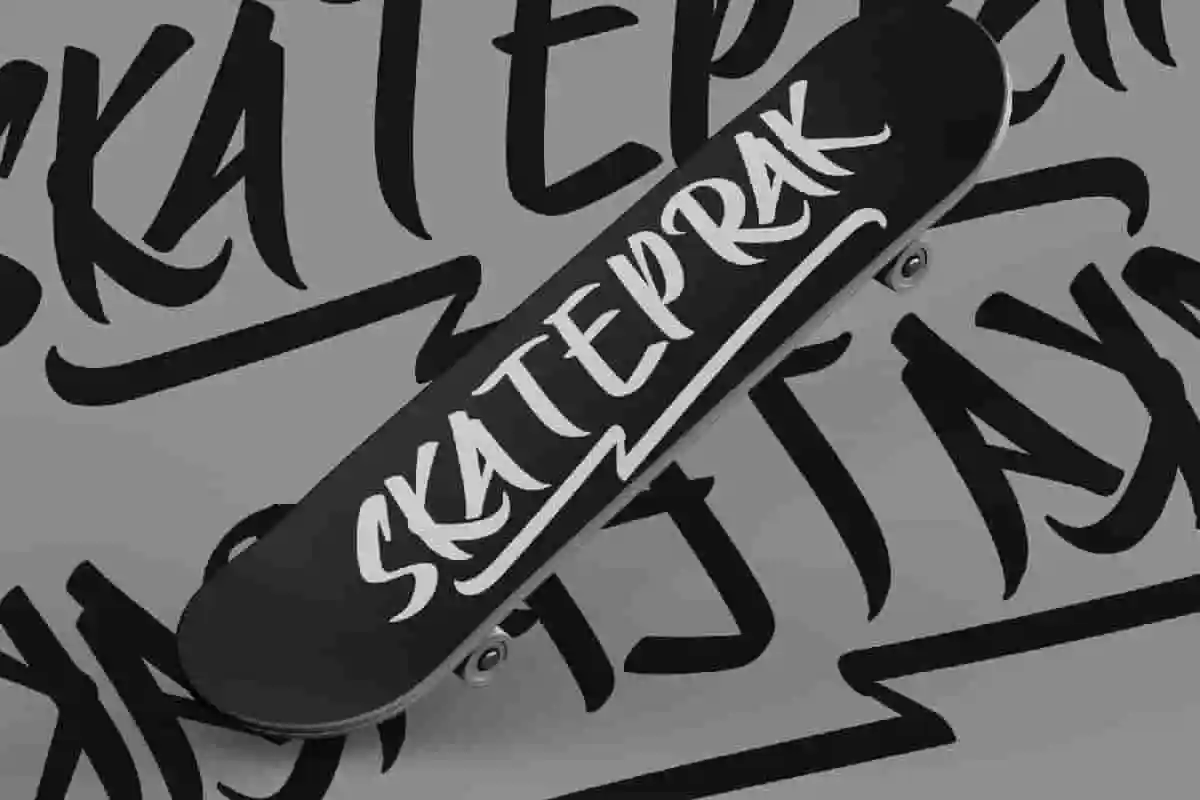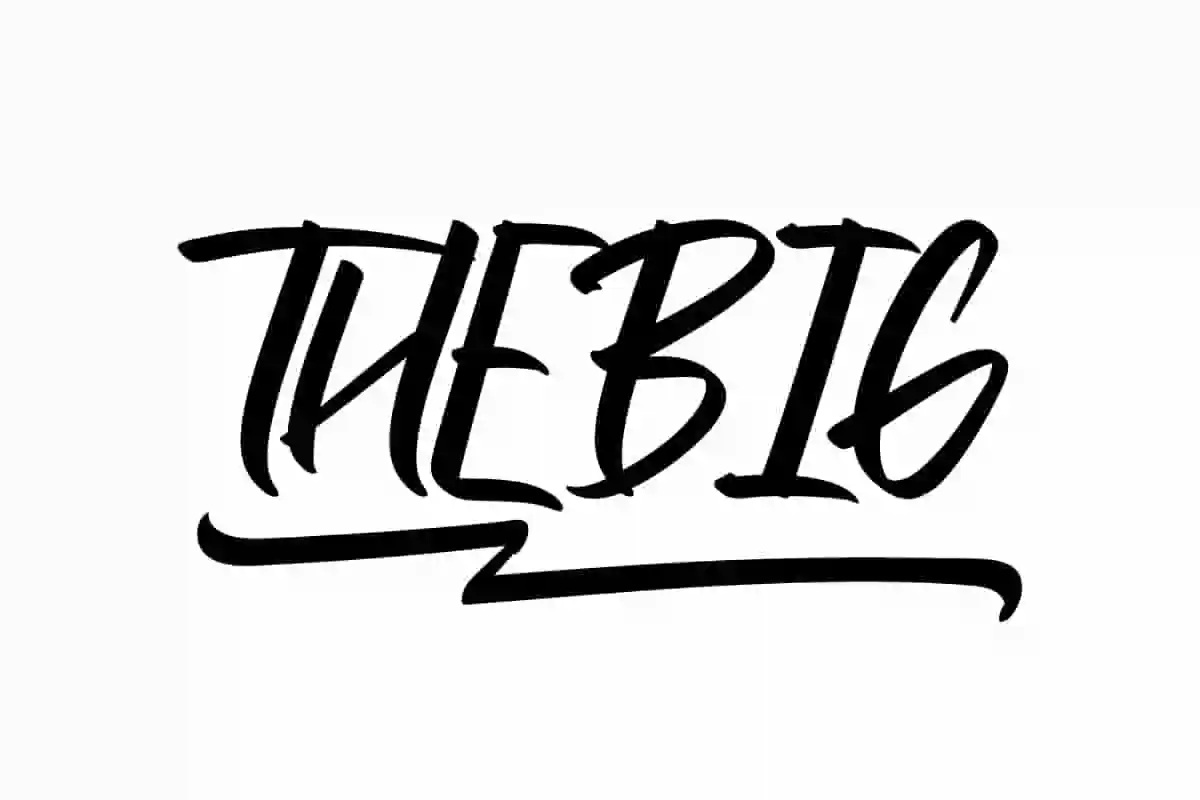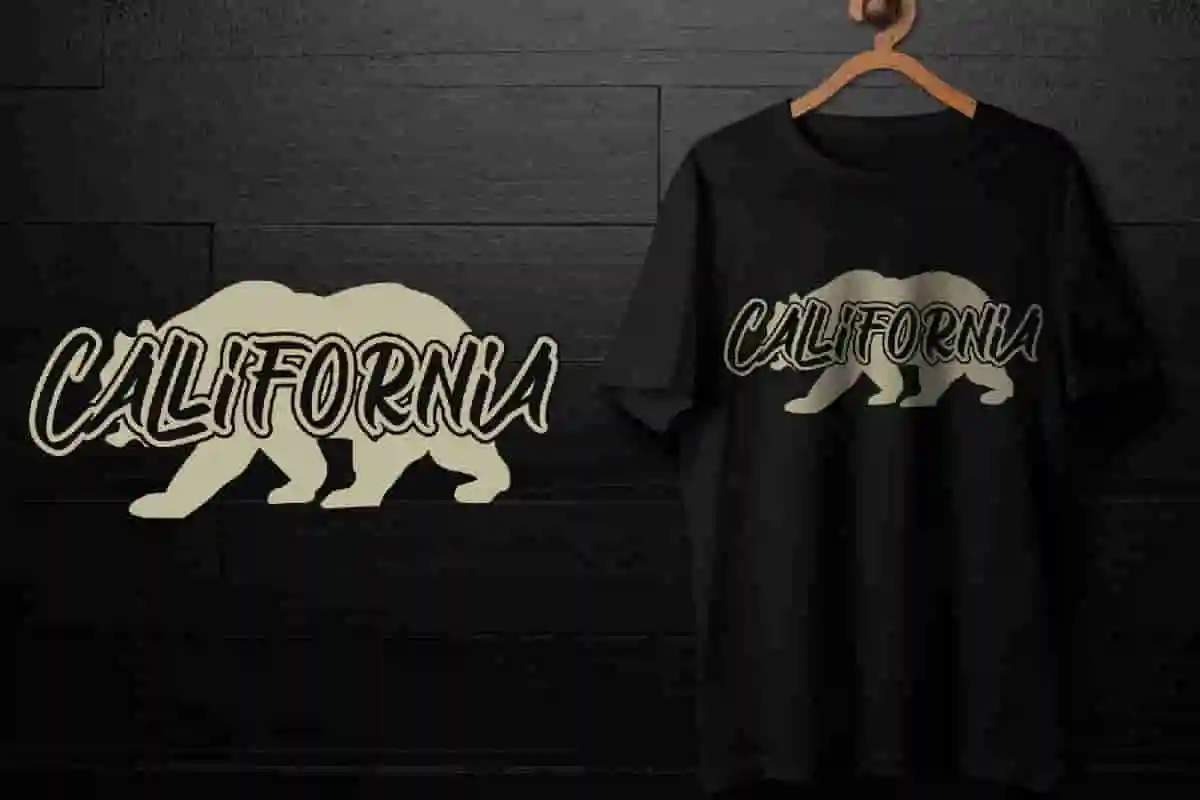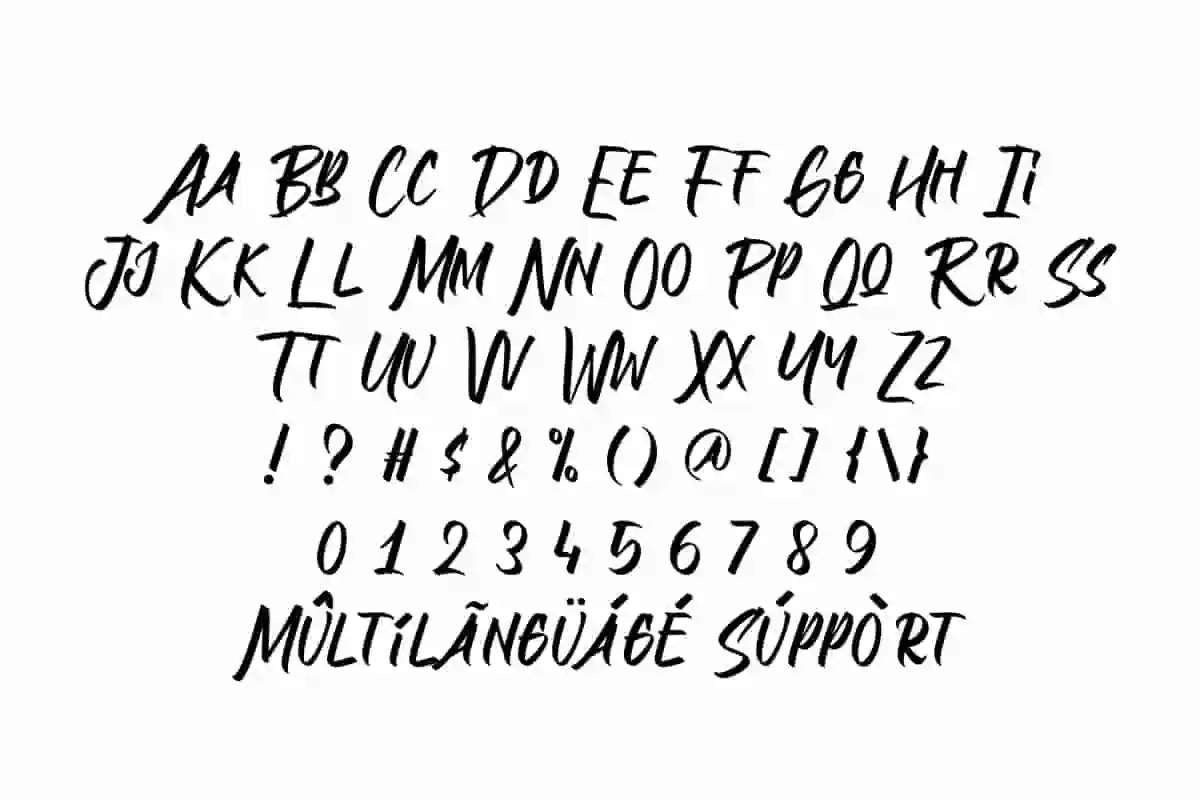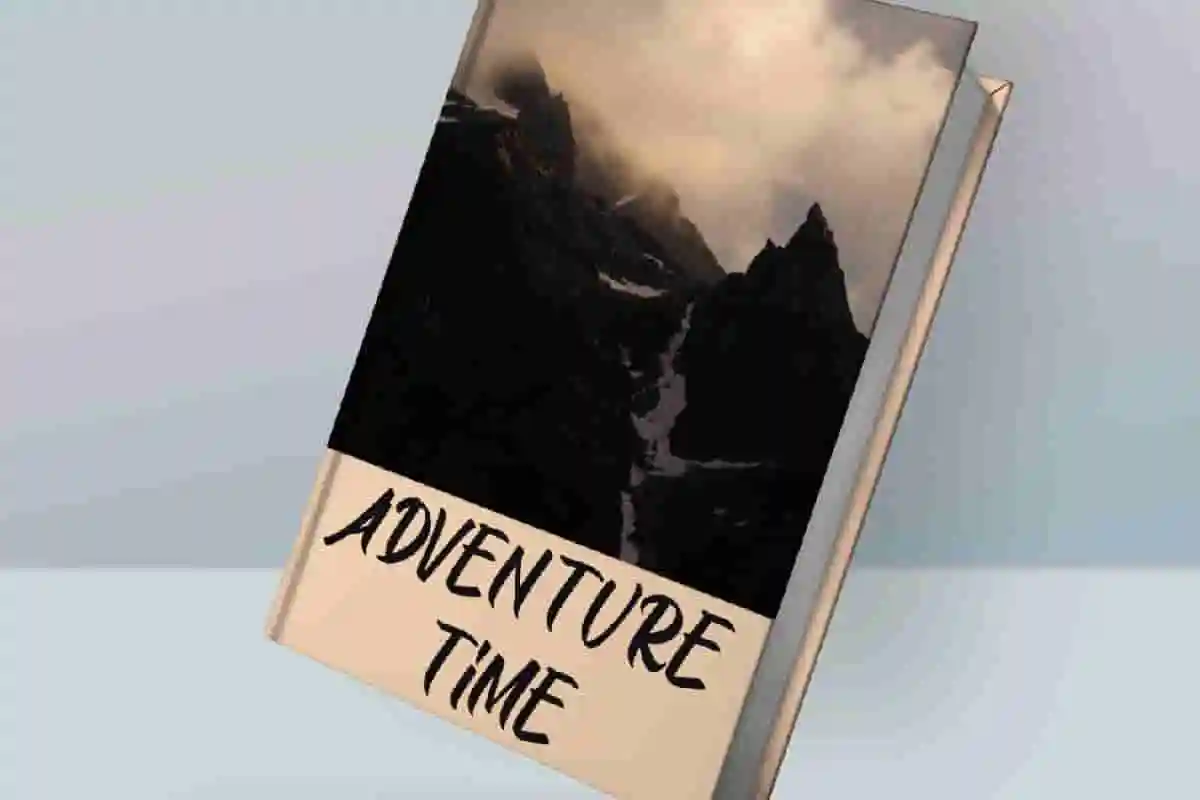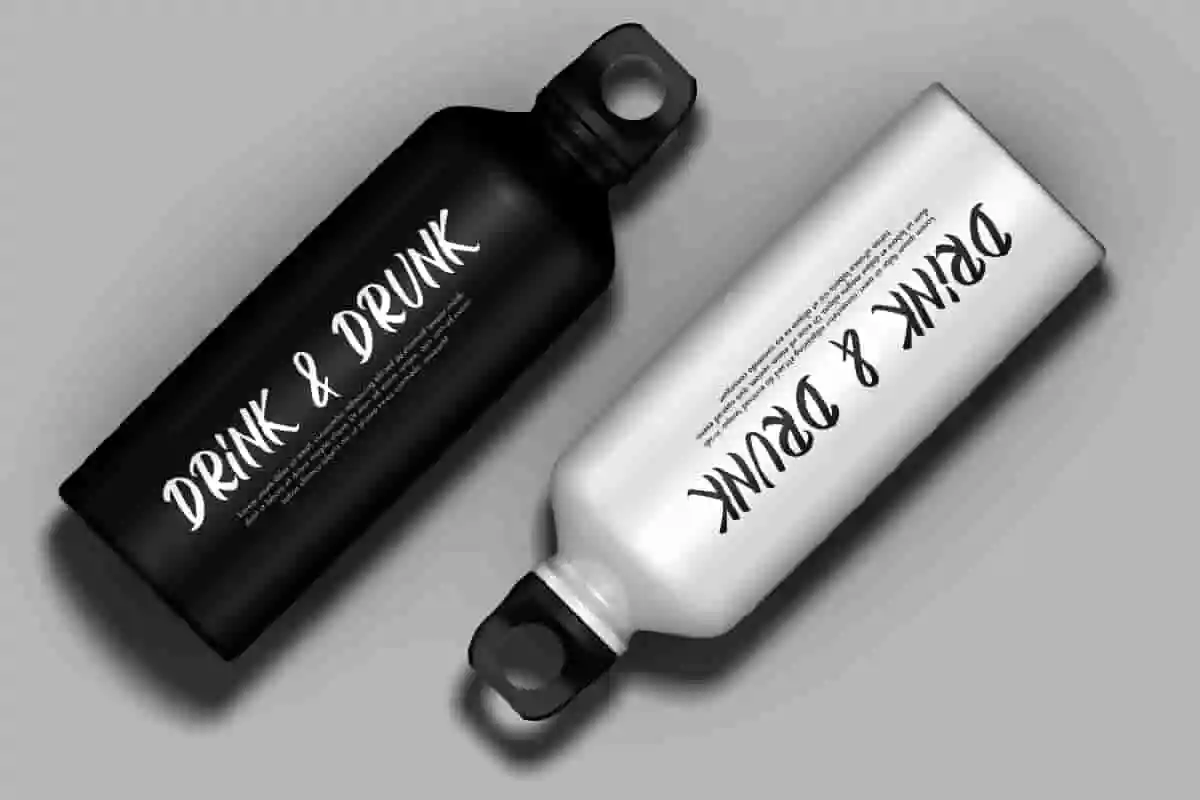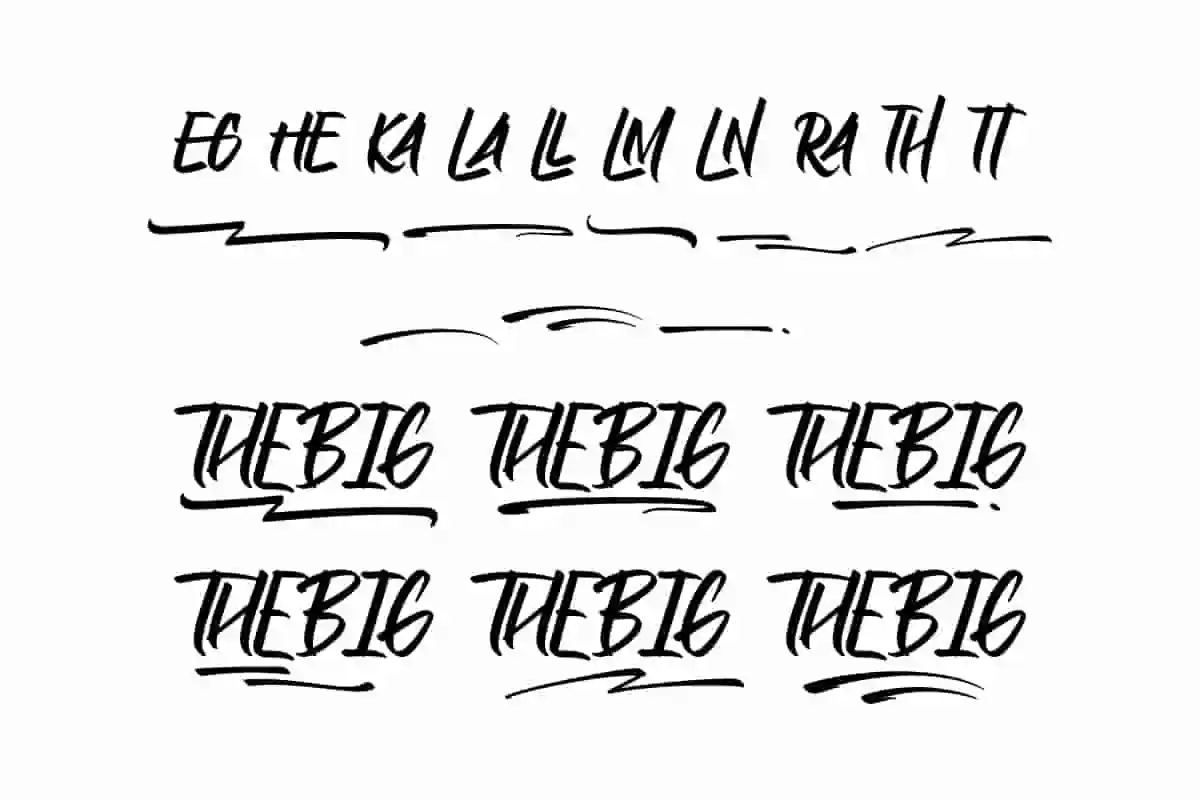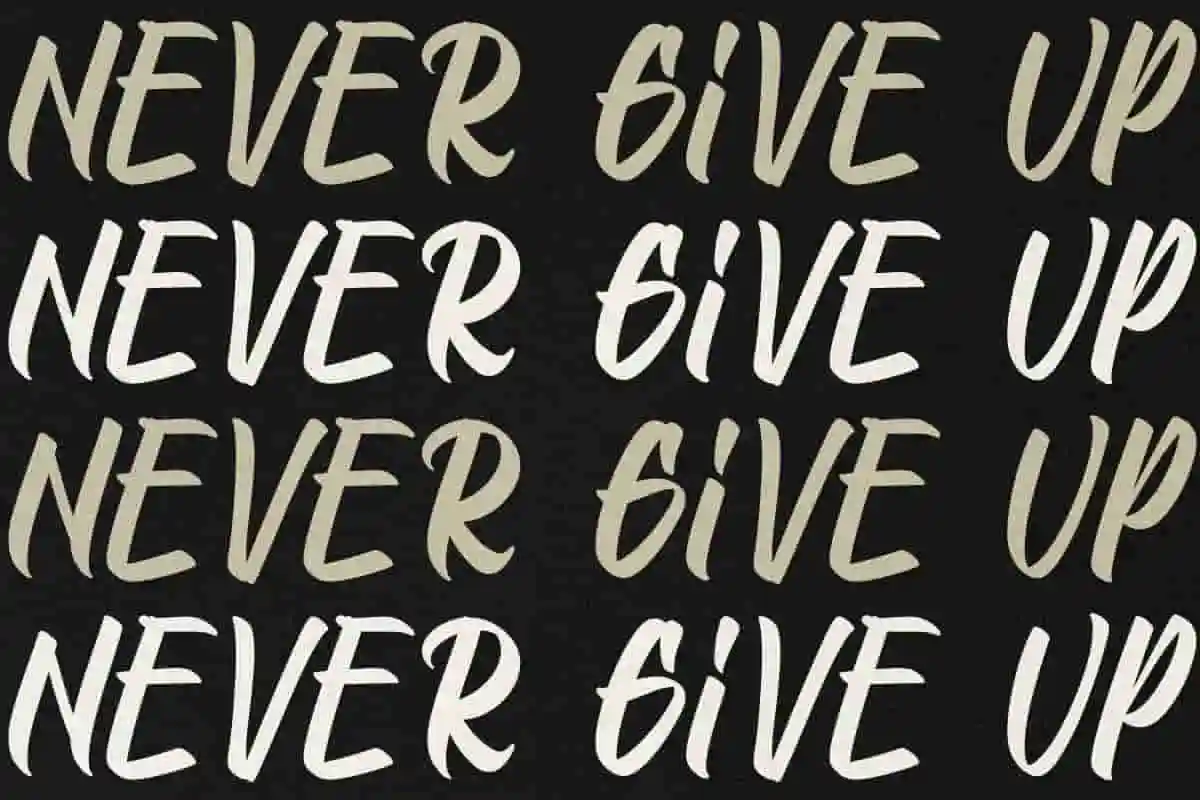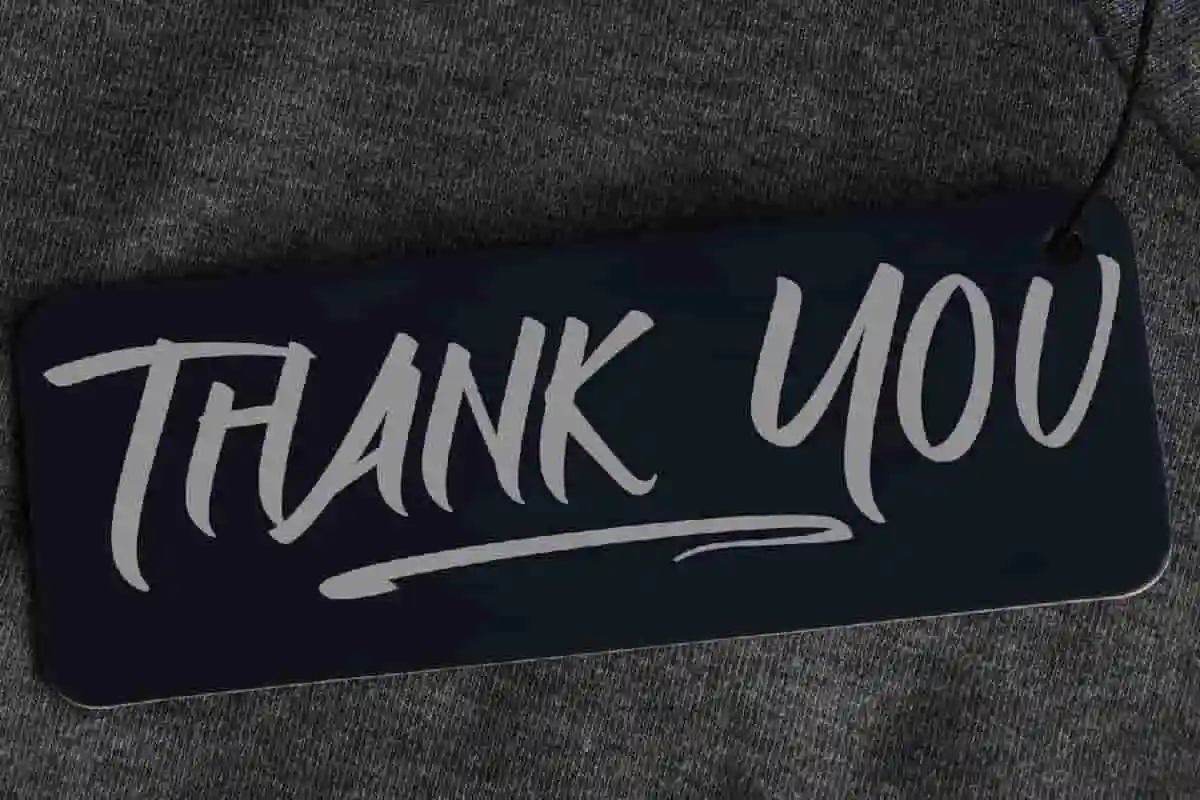
Thebig Font is a beautifully handcrafted brush-style font created by NihStudio in 2020. Designed with a natural, artistic touch, Thebig is perfect for a wide variety of design projects such as:
Branding and logo design
Business cards and stationery
Posters, flyers, brochures
Signage and advertising
Product packaging
Whether you’re working on a coffee shop brand, musician’s event poster, cosmetics label, or a gaming logo, Thebig brings a stylish, dynamic brush lettering feel to your project.
This font is fully handcrafted at NihStudio, Indonesia, ensuring a unique and personal design touch.
Well-Kerned & Spaced: Optimized for professional typography
Stunning Brush Characters: A perfect blend of elegance and bold expression
Beauty & Cosmetics
Music & Art Events
Café & Restaurant Branding
Sporty & Gamer-Themed Projects
Motorcycle Culture Design
Houseware Product Labels
Creative Promotions and More
Thebig offers a natural brush style with an aesthetic that’s both unique and versatile. Its character is ideal for those who want their designs to stand out with a handcrafted, artistic edge.